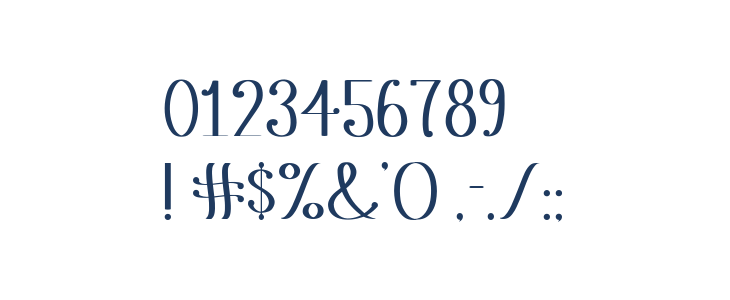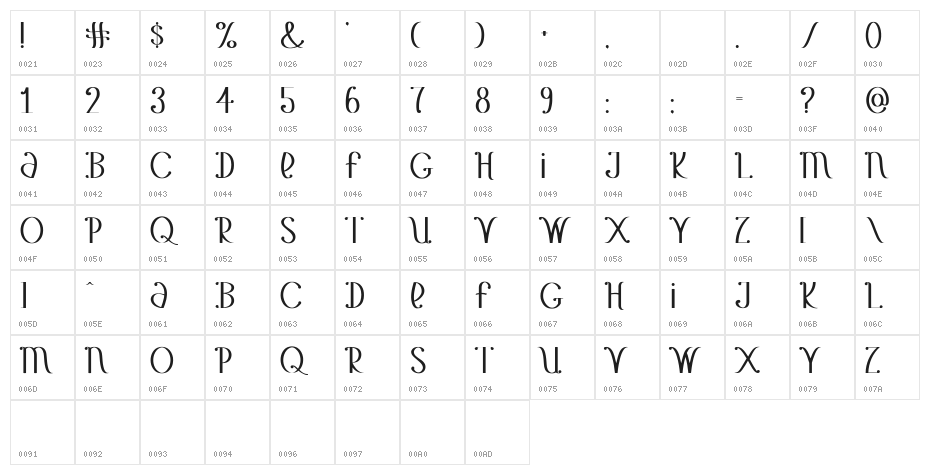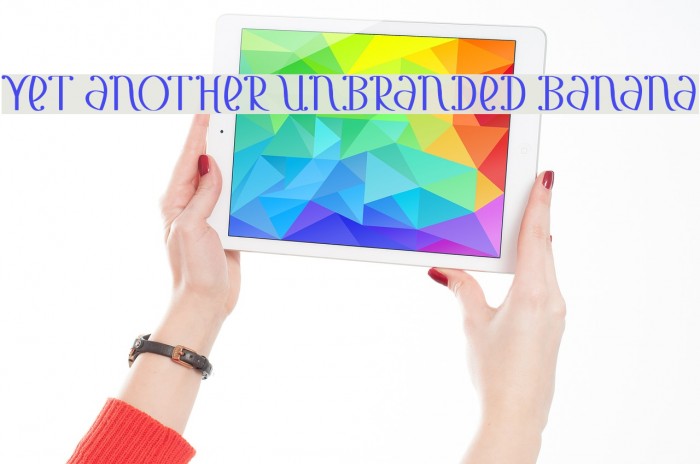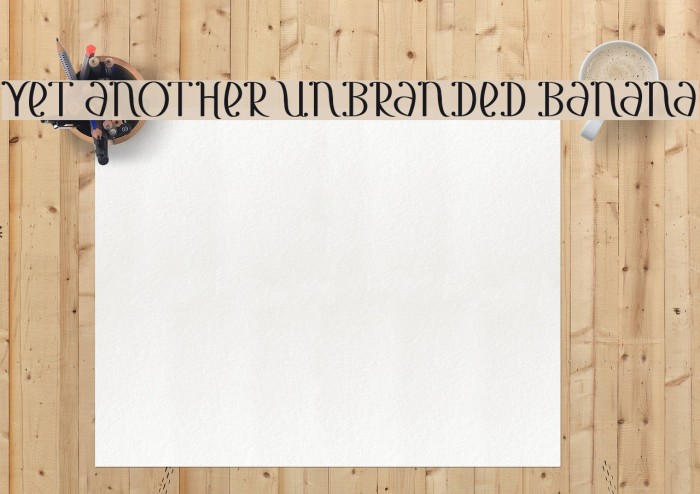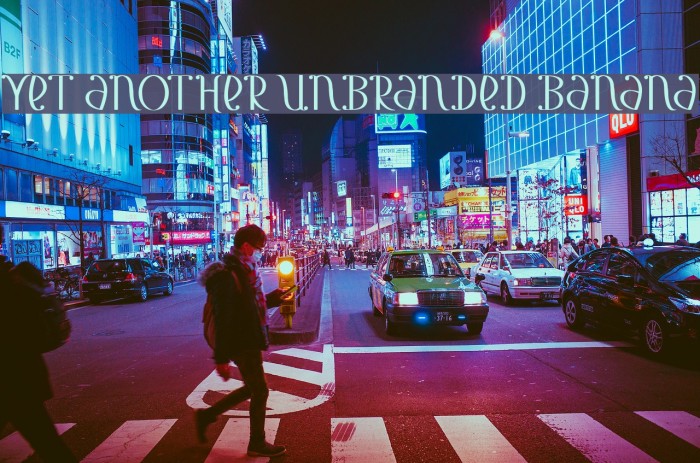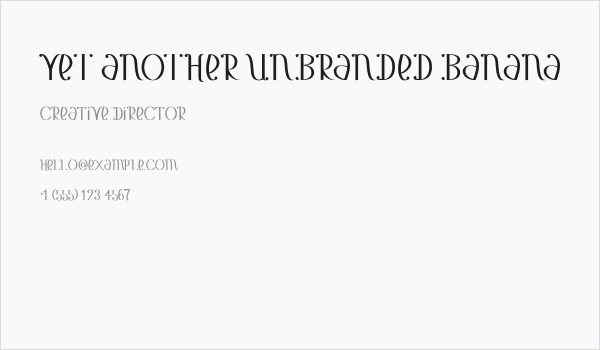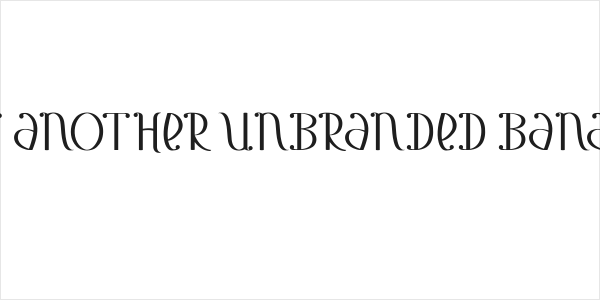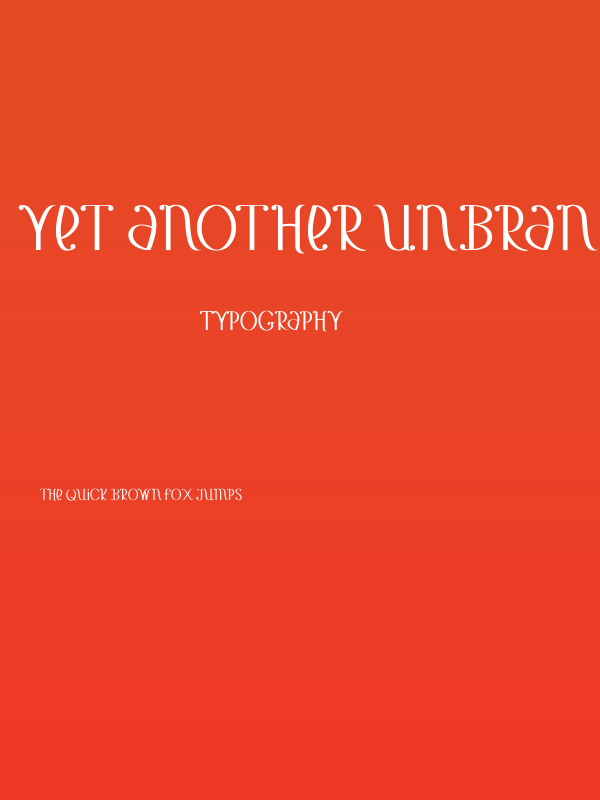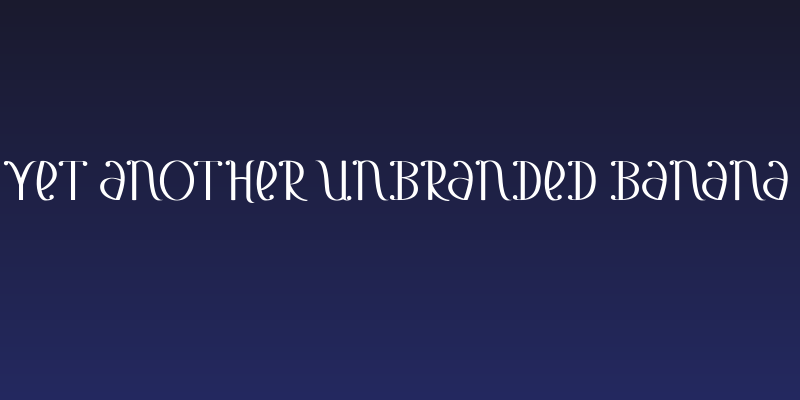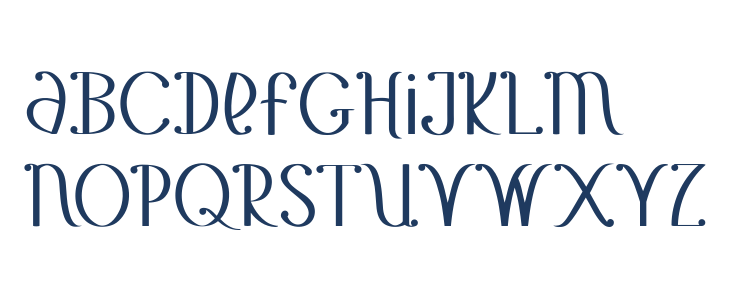
Yet Another Unbranded Banana Font
Yet Another Unbranded Banana Description
This font features a unique and playful design with a whimsical flair. Each character is adorned with small, decorative serifs that add a touch of elegance and charm. The strokes are consistent in width, providing a balanced and harmonious appearance. The overall style is reminiscent of vintage typography, yet it maintains a modern twist with its clean lines and smooth curves. The numbers and special characters are crafted with the same attention to detail, ensuring a cohesive look across all elements. This font is perfect for projects that require a touch of personality and creativity.
| Overall Style | Vintage, Modern |
| Proposed Projects | Ideal for branding, invitations, posters, and creative projects that need a playful yet elegant touch. |